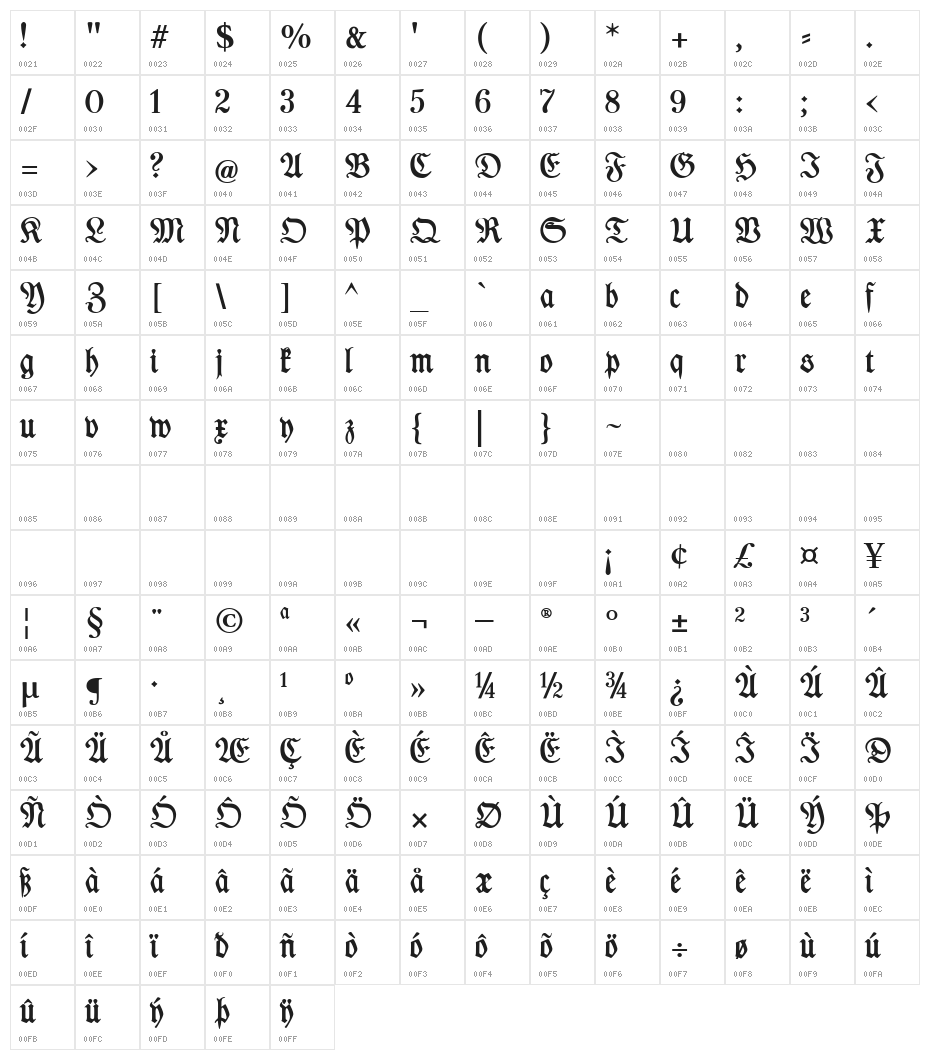
DesMalersFraktur Font
DesMalersFraktur Description
This font embodies the traditional and ornate characteristics of Blackletter typefaces, featuring intricate and decorative strokes that are reminiscent of medieval script. The uppercase letters are bold and elaborate, with sharp angles and flourishes that give them a distinct historical feel. The lowercase letters maintain a similar style, with a slightly more subdued design that complements the uppercase. The numerals are consistent with the overall aesthetic, offering a unique and stylized appearance. Special characters are included, maintaining the same ornate and decorative qualities. This font is ideal for projects that require a touch of historical elegance and sophistication.